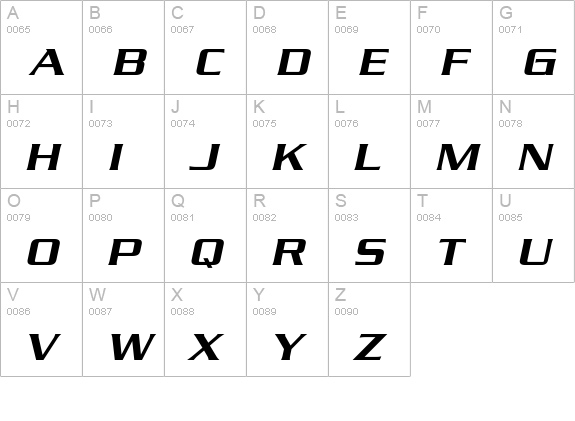
Chaney-Extended Bold Italic is a strong, high-contrast, extended-width, italic variant in the Chaney typeface family \xE2\x80\x94 well suited to headlines, attention-grabbing titles, and strong calls-to-action.
Chaney-Extended Bold Italic is a striking and versatile font that exudes confidence and modernity. Its bold and slanted design adds a touch of sophistication to any project, making it perfect for headlines, titles, and branding materials. The sharp angles and clean lines of this typeface make it stand out while maintaining a professional and polished look. What's even better is that Chaney-Extended Bold Italic is available for free download at FontsMarket.com, making it accessible to anyone looking to add a touch of elegance to their design work. Whether you're a graphic designer, a business owner, or a creative enthusiast, this font is sure to make a bold statement and elevate your projects to the next level. Download Chaney-Extended Bold Italic today and see how it can enhance your creative endeavors!